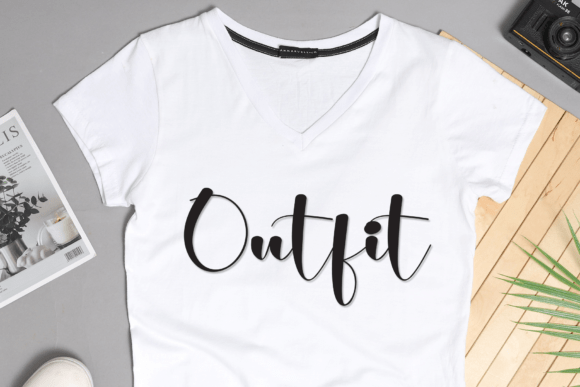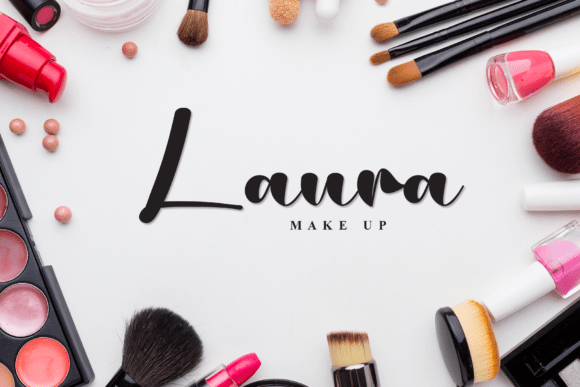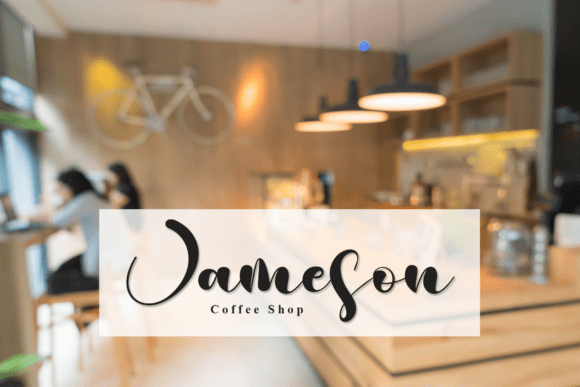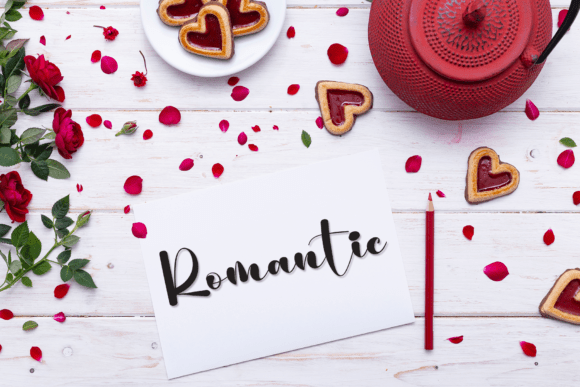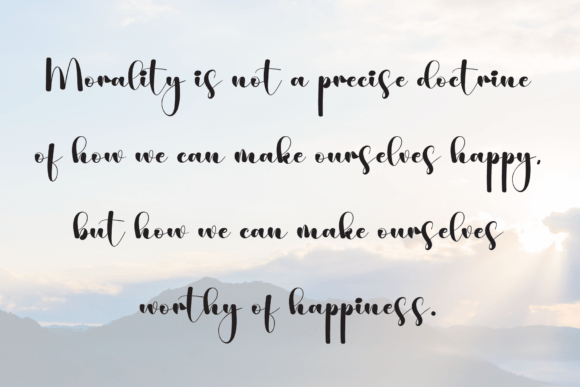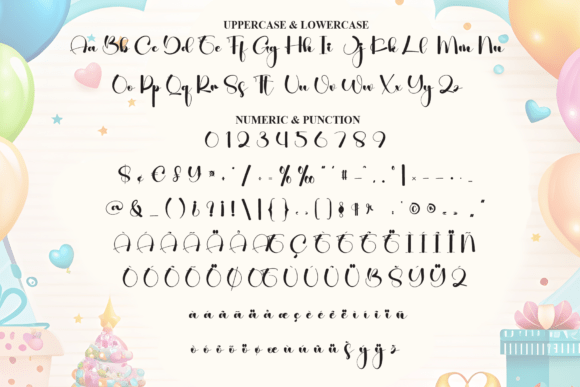
The Birthday Font: A Sweet and Friendly Companion for Your Designs
I’ll never forget the time I was working on a wedding invitation project, and my client asked me to create something that felt “warm and fuzzy.” I scoured font libraries, but nothing seemed quite right. That’s when I stumbled upon the Birthday Font, and it instantly captured the essence of what I was looking for. With its effortlessly personable handwritten display, this font has become a staple in my design toolkit.
An Honest Review: The Good and the Quirky
• ✨ The jovial and enchanting allure that makes designs feel approachable and friendly
• ✅ Sweet and elegant handwritten notes that add a personal touch to any project
• 💕 Perfect for crafting irresistible wedding invitations, engaging cards, and more
While the Birthday Font is incredibly versatile, there are a few things to keep in mind:
• ⚠️ Some letters may appear a tad too ornate or stylized for very formal designs
• 🤔 Limited availability of certain OpenType features, which might restrict advanced typographic control
The Story Behind the Birthday Font
The Birthday Font was designed with the intention of capturing the essence of sweet, handwritten notes. Its creator aimed to craft a font that felt approachable, friendly, and perfect for special occasions. Although the designer’s story might be shrouded in mystery, their work has undoubtedly brought joy to countless designers and crafters.
Q: What makes the Birthday Font so special?
A: The Birthday Font’s unique blend of joviality and elegance makes it perfect for a wide range of designs, from wedding invitations to engaging cards.
Q: What are some common uses for the Birthday Font?
A: The Birthday Font is perfect for crafting wedding invitations, birthday cards, thank-you notes, and other designs that require a personal touch.